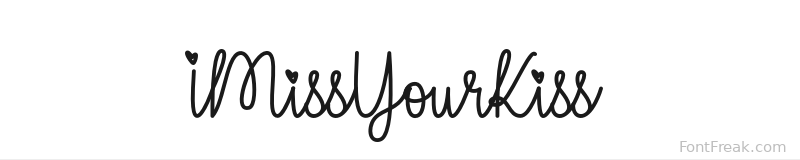
I Miss Your Kiss
About I Miss Your Kiss
The "I Miss Your Kiss" font, created by Misti Hammers, is a charming handwritten typeface that exudes warmth and personality. This script font features a playful and fluid design, characterized by its elegant strokes and subtle curves. The stroke weight is moderate, allowing for clear legibility while maintaining a whimsical aesthetic. The letterforms showcase an appealing contrast, with some characters embellished with delicate heart accents that enhance its romantic feel. The spacing is well-balanced, ensuring that each letter flows seamlessly into the next while remaining distinct.
Ideal for a variety of creative applications, the "I Miss Your Kiss" font is perfect for wedding invitations, where its affectionate style can beautifully convey heartfelt sentiments. It also works wonderfully for greeting cards, adding a personal touch to messages of love and appreciation. Small businesses can utilize this font on their promotional materials, such as flyers and menus, to create a unique, inviting atmosphere that resonates with customers. Content creators looking to enhance their digital projects, like blogs or social media posts, will find this font adds a relatable and friendly vibe.
What sets the "I Miss Your Kiss" font apart is its ability to evoke emotion through its playful yet elegant design. This font captures the essence of affection and connection, making it a delightful choice for projects that aim to celebrate love and togetherness.